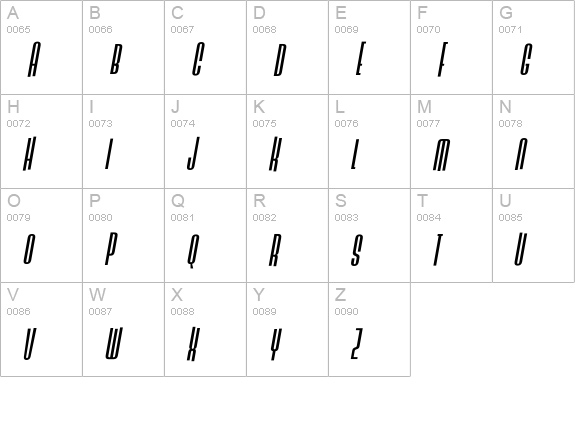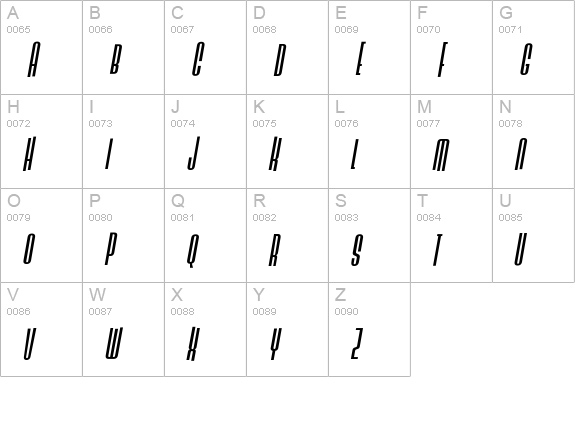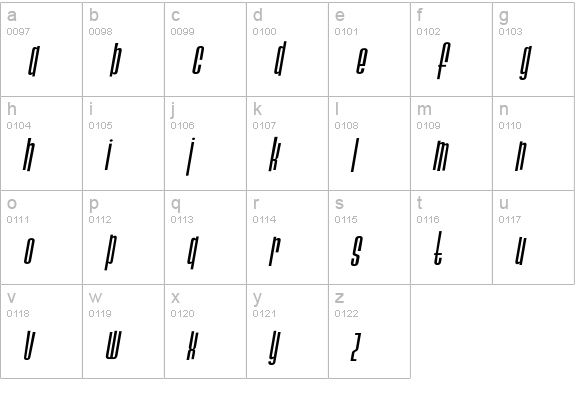
SlackCasual-MediumItalic Font Details
SlackCasual-MediumItalic is a stylish and versatile font that combines casual elegance with a touch of playfulness. Its medium weight and italic design give it a unique and dynamic appearance, making it perfect for both professional and creative projects. This font is meticulously designed to offer a balanced and harmonious look that captures attention without being overpowering. Its smooth curves and gentle slant create a sense of movement and fluidity, adding a touch of sophistication to any text. Whether you're designing a logo, crafting a brand identity, or creating eye-catching headlines, SlackCasual-MediumItalic is sure to make a lasting impression. Its unique style and versatility make it suitable for a wide range of applications, from marketing materials to social media posts. The best part? SlackCasual-MediumItalic is available for free download at FontsMarket.com. This means that you can start using this amazing font in your projects without any cost. FontsMarket.com is a trusted source for high-quality fonts, and their easy-to-navigate website makes it simple to find and download the fonts you need. Don't miss out on the opportunity to enhance your designs with the elegance and charm of SlackCasual-MediumItalic. Download it for free at FontsMarket.com and experience the creative possibilities it offers.